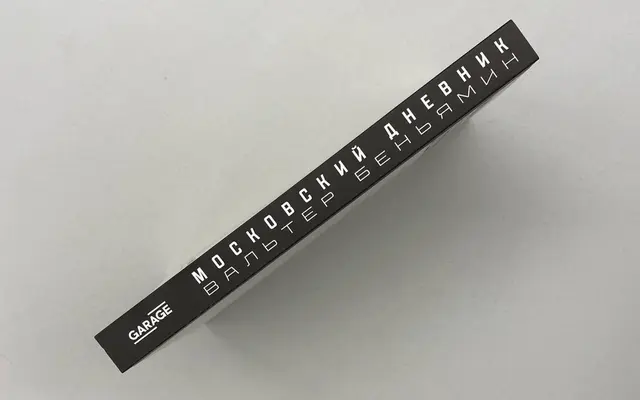
CoFo Peshka
A 144-style variable sans covering Latin, Cyrillic and Hebrew, built around a contrast axis that runs from zero-stroke-contrast to full high-contrast across eight steps and six weights.
The family ships with 144 static styles plus a variable font, combining eight contrast values (0 through 1000) with six weights from Thin to Black and three slopes: upright, backslanted and slanted. That contrast axis is the defining structural idea, letting the typeface shift from a plain geometric skeleton to something approaching a high-contrast display face within a single family. Cyrillic, Latin and Hebrew are all covered, making it one of the few variable typefaces to span three distinct scripts simultaneously.
CoFo Peshka is a geometric sans-serif with a variable contrast axis, spanning from zero-contrast to high-contrast strokes across eight contrast levels and five weights, placing it in an experimental geometric sans tradition.